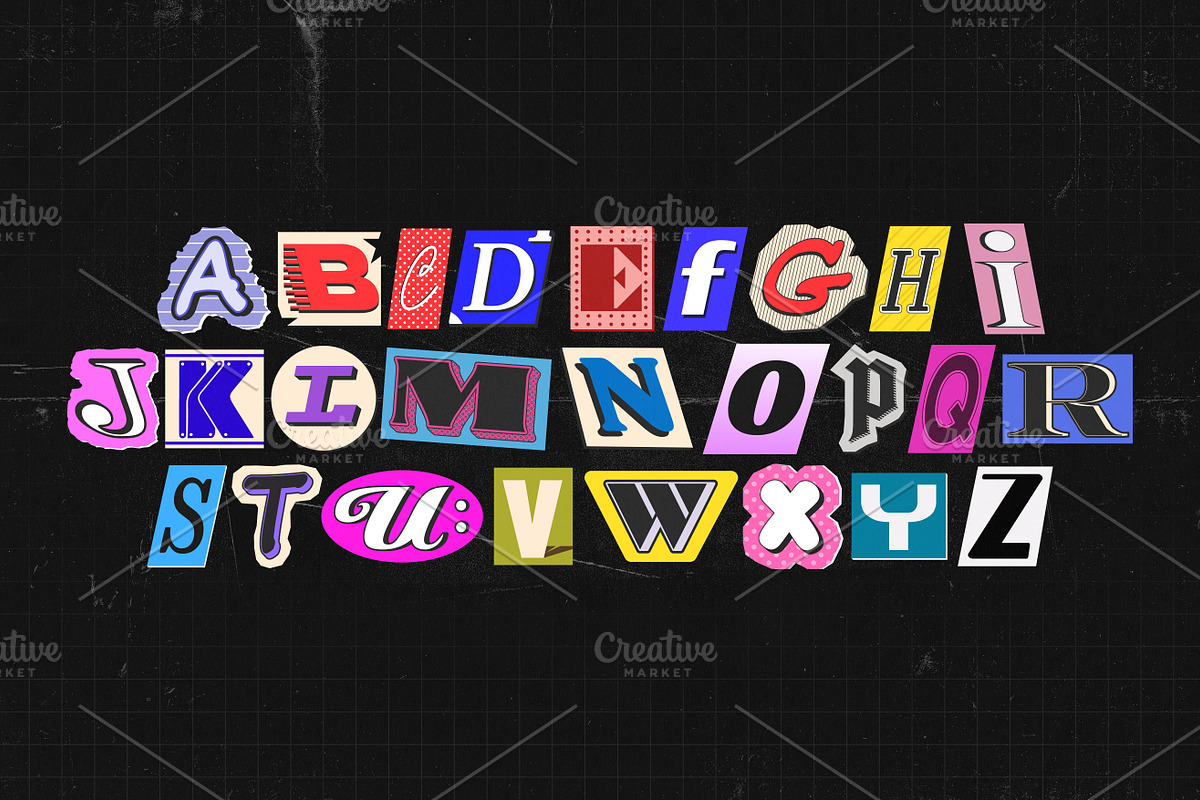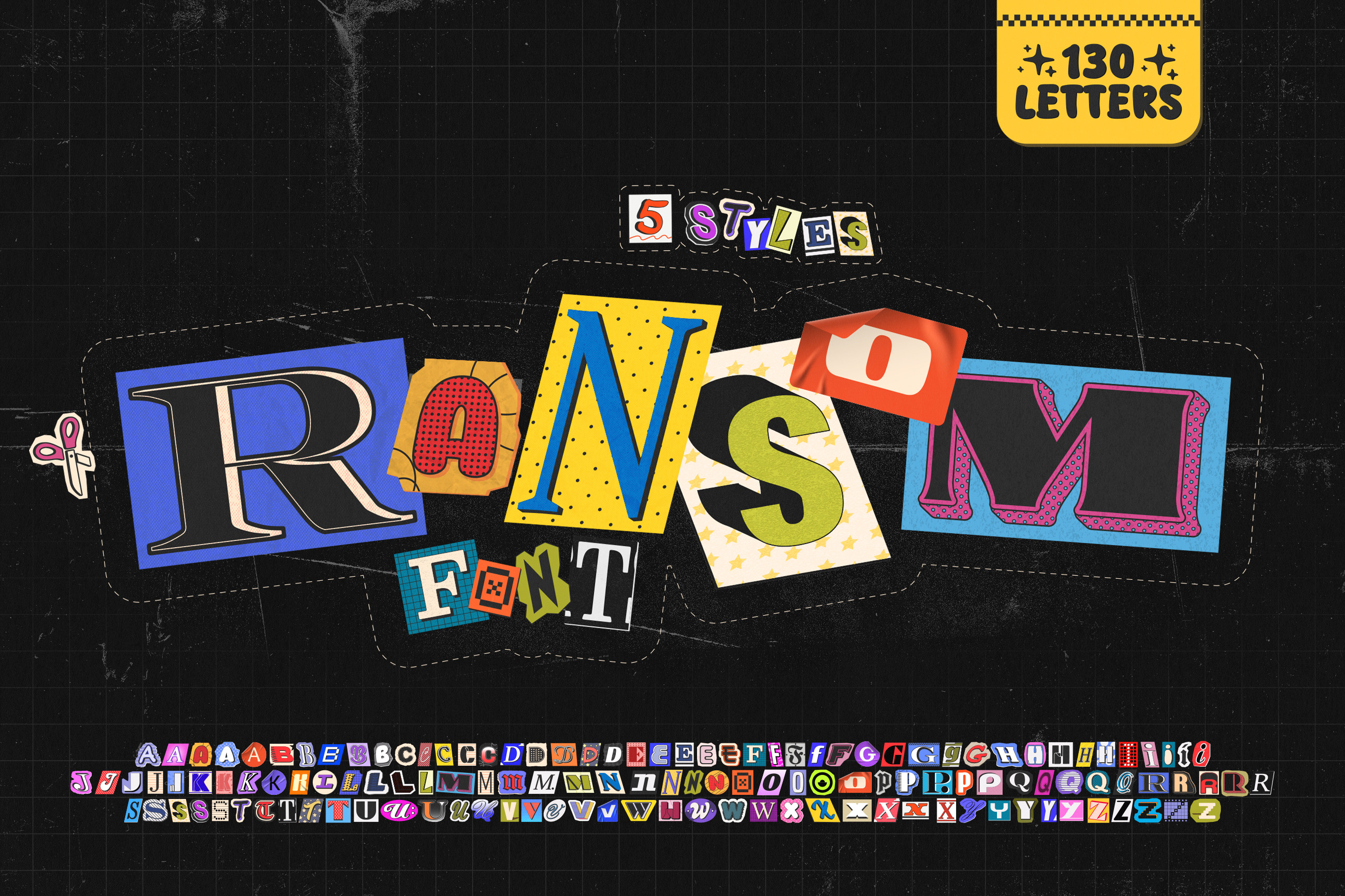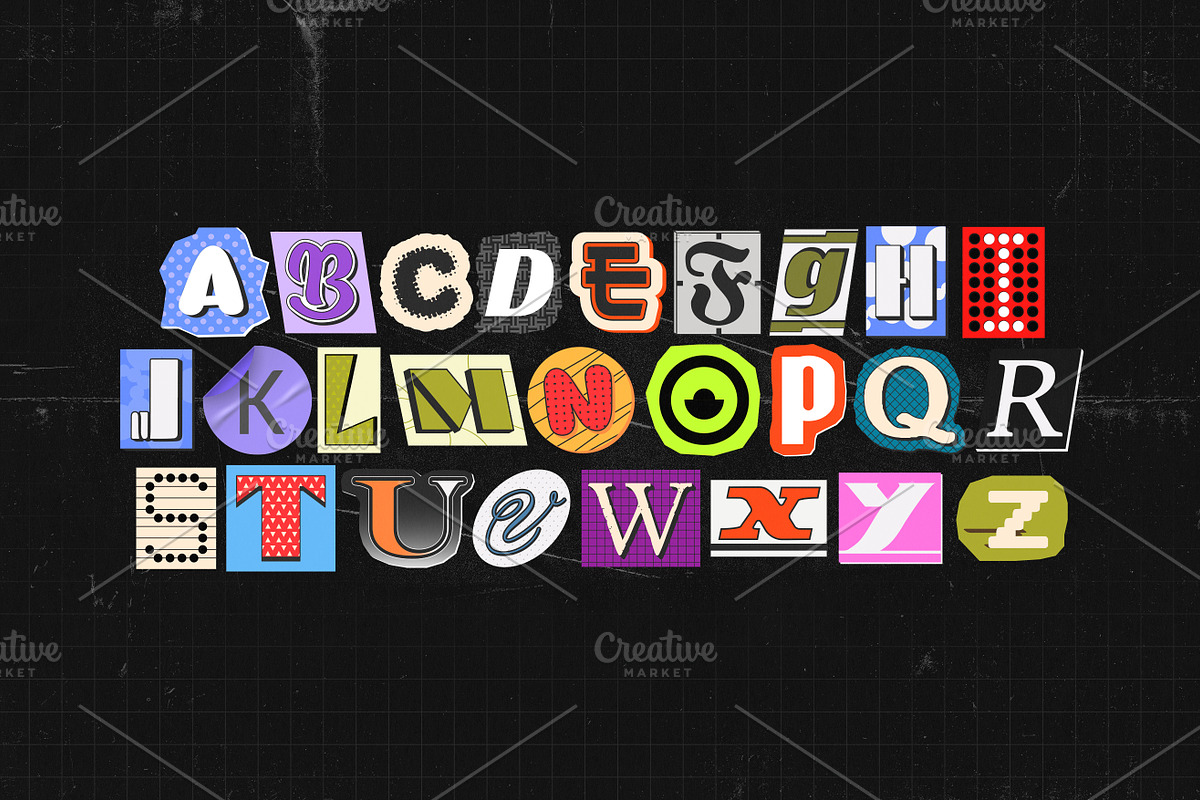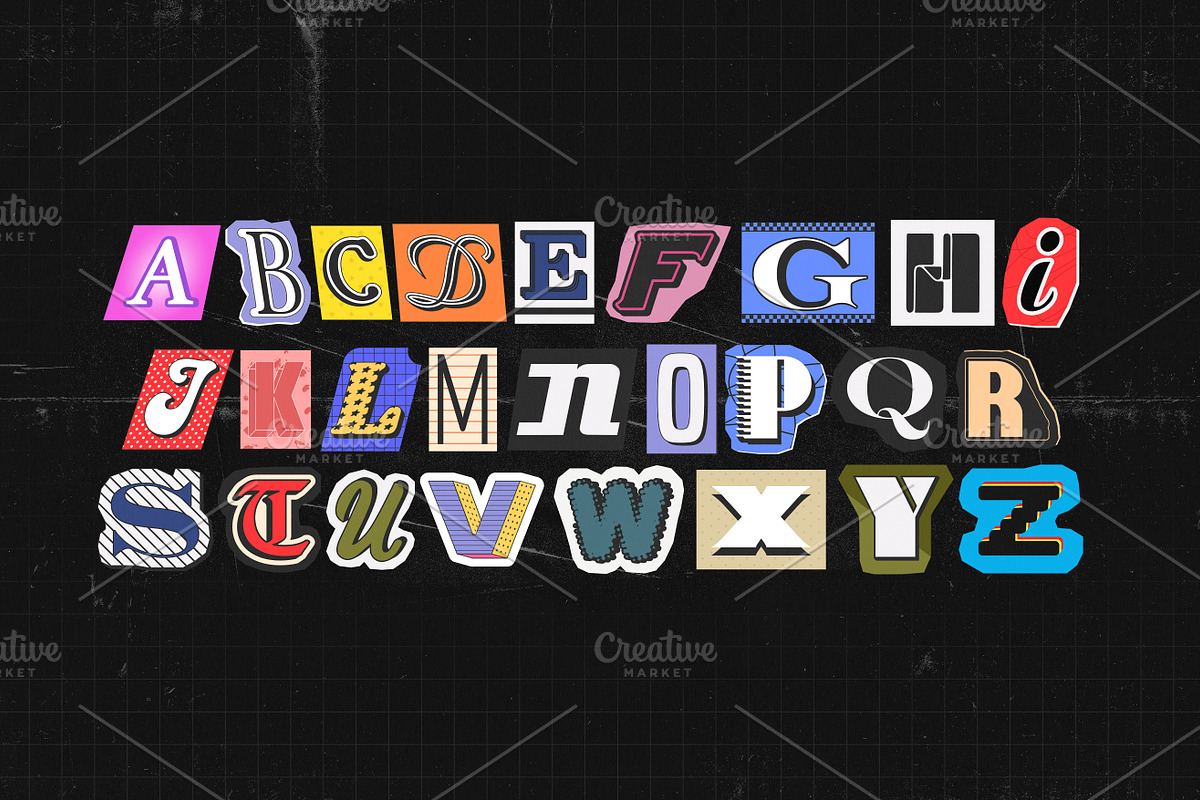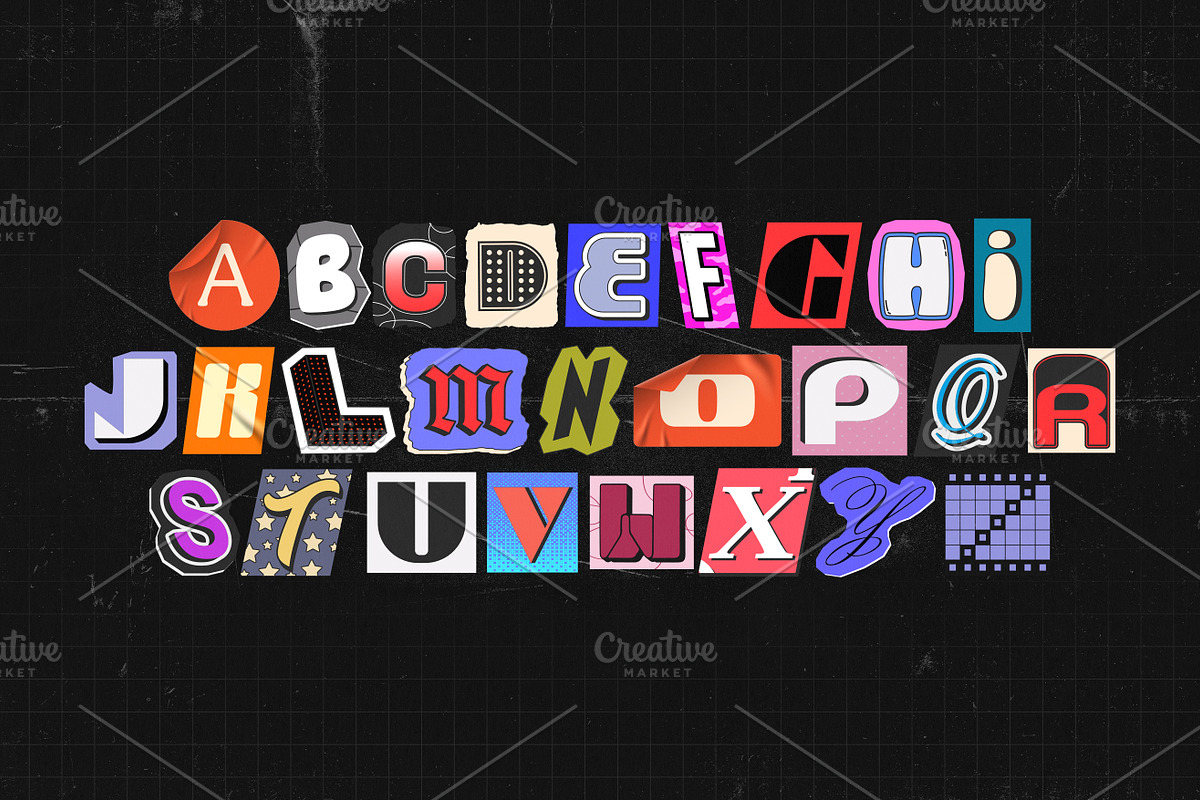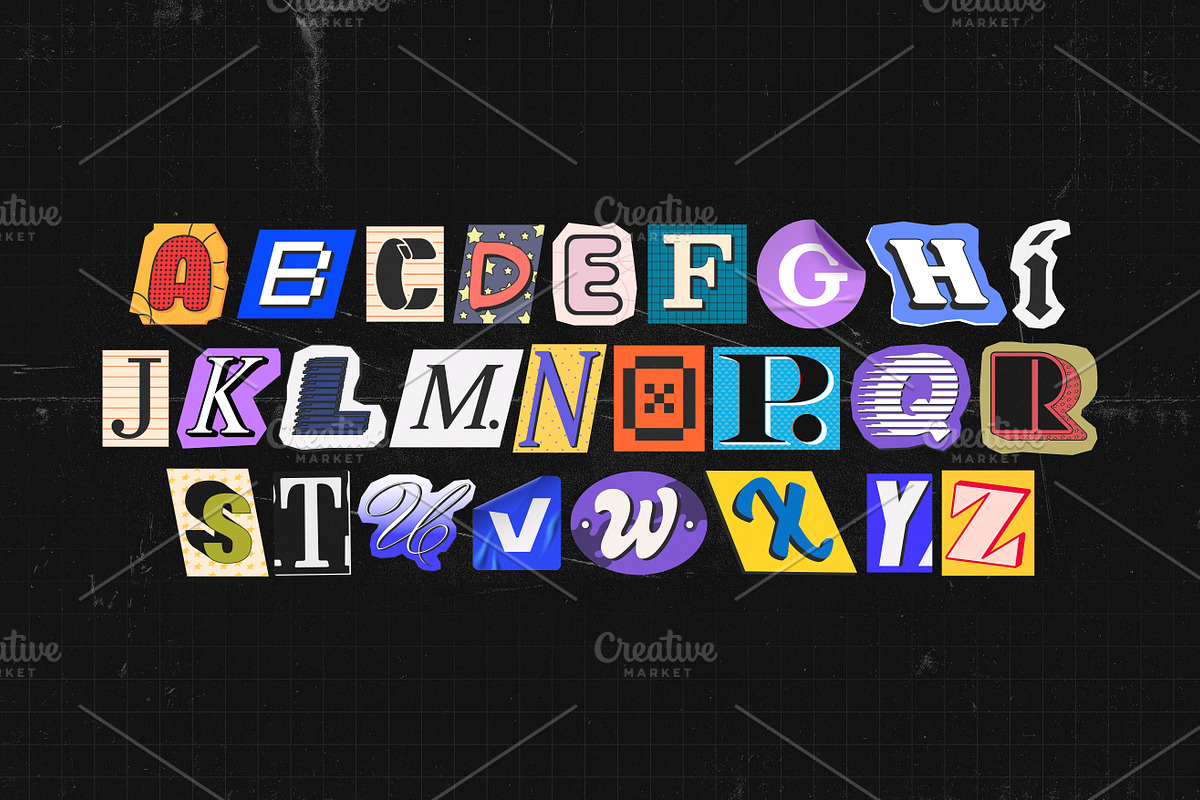
RANSOM ALPHABET FONT
Ransom alphabet font. Cutout letters from magazines and newspapers. Pop art collage style with 5 colorful variations from A to Z. Perfect for poster design, streetwear graphics, and bold typography projects. Vector collection
This set is a perfect choice for designers who love experimental and rebellious typography. Each letter was created in a handmade collage style, allowing you to mix, match, and create expressive compositions easily.